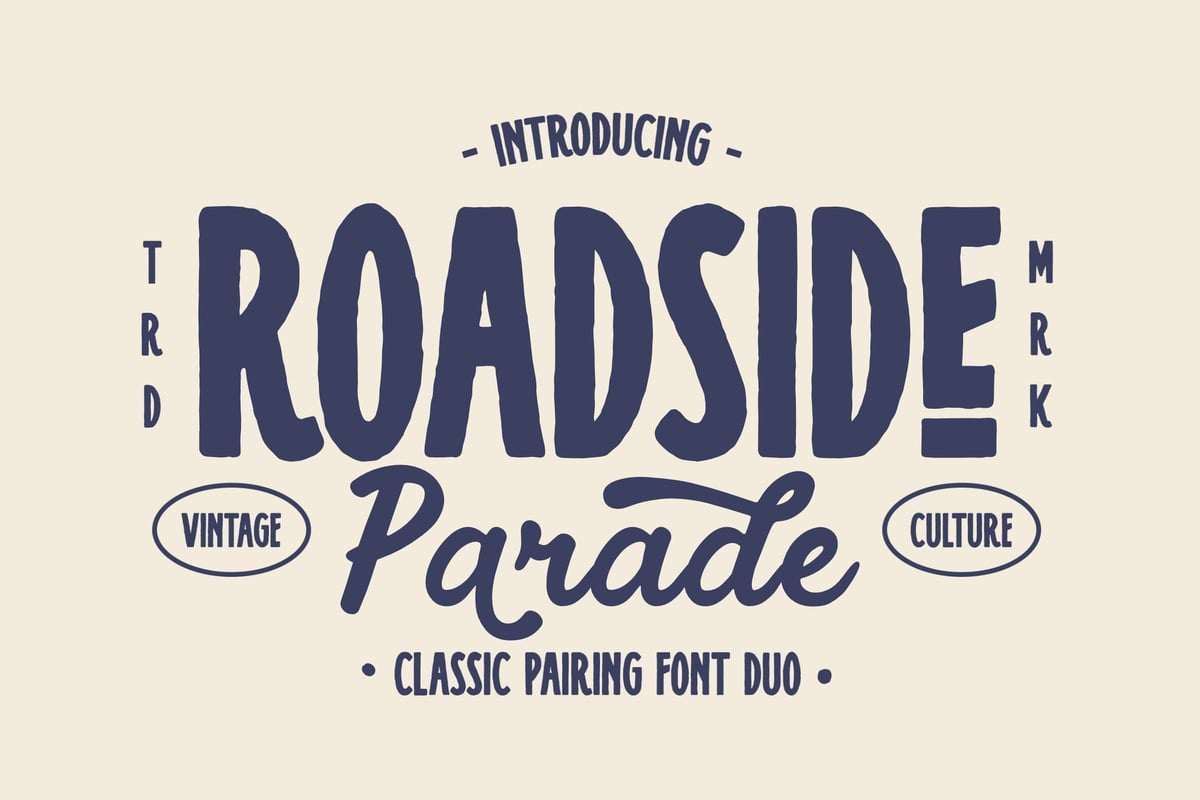
Roadside Duo - Sans & Script Font
Two fonts, one perfect pairing — clean sans meets expressive script for bold, versatile branding.
Roadside is a modern font duo that strikes the ideal balance between structured professionalism and natural handwritten character. The sleek sans serif and smooth script work together to create a visually dynamic combination that feels equally at home on a surf brand label, a vintage logo, or an editorial spread.
The contrast between rigid, geometric letterforms and flowing script makes this duo exceptionally versatile — perfect for projects that need both edge and elegance. Whether you're designing for modern brands or creative lifestyle concepts, Roadside delivers typographic personality with ease.
- Sans & script font duo
- Ligatures & alternates for enhanced typographic flexibility
- Multilingual language support